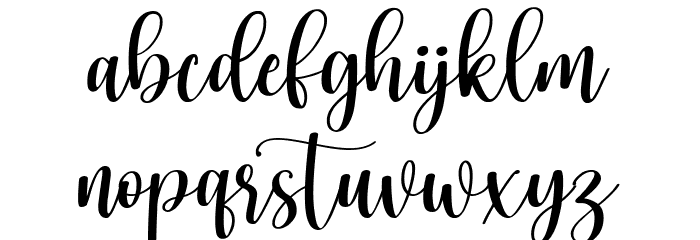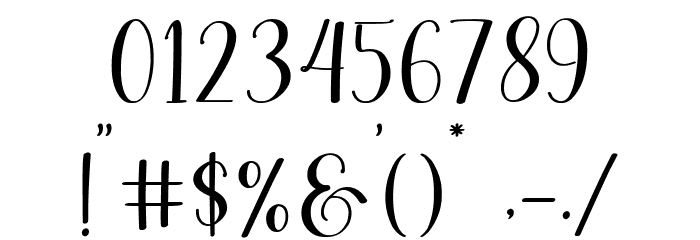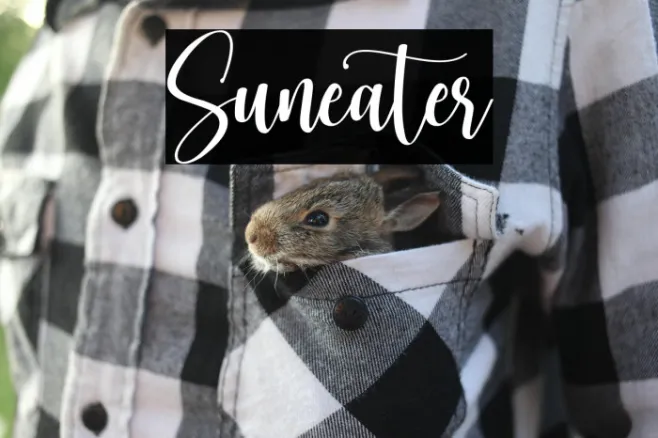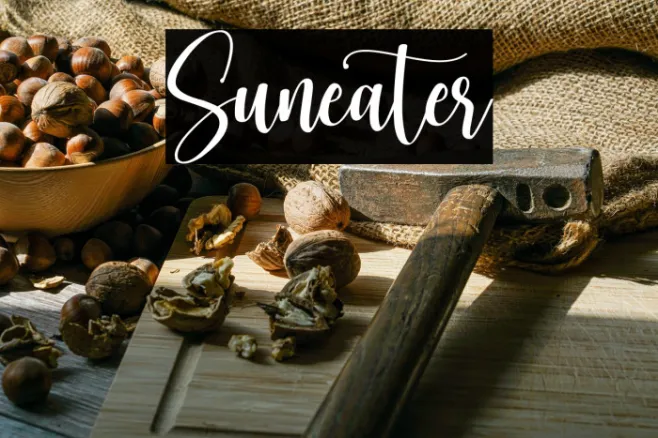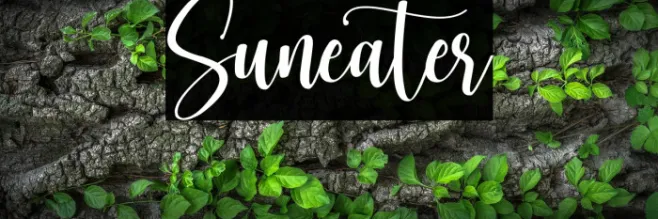
Suneater Font
This font features a flowing, elegant script style with a modern touch. The uppercase letters are tall and slender, with graceful curves and loops that give a sense of movement and fluidity. The lowercase letters maintain a similar aesthetic, with some characters featuring distinctive swashes and flourishes that add a decorative element. The numerals are consistent with the overall style, offering a harmonious blend of elegance and readability. Special characters are designed with the same attention to detail, ensuring they integrate seamlessly with the rest of the font. This font's overall appearance is both sophisticated and approachable, making it suitable for a variety of design projects.
A modern, elegant script font with flowing curves and decorative swashes.